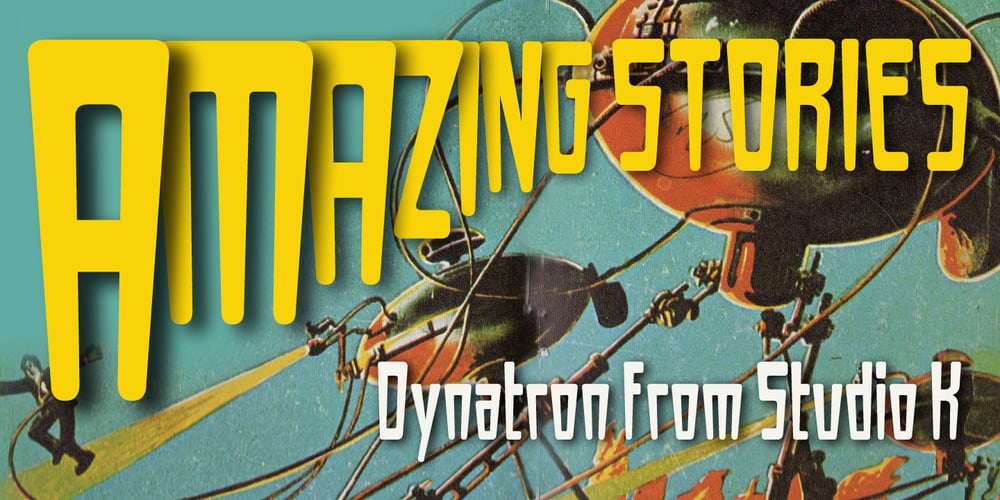
Dynatron Font Family was designed by Keith Tricker and published by Studio K. Dynatron contains 2 styles and family package options. Dynatron is a bold condensed retro-style font inspired by the old sci-fi comic covers, an example of which I have mocked up here.